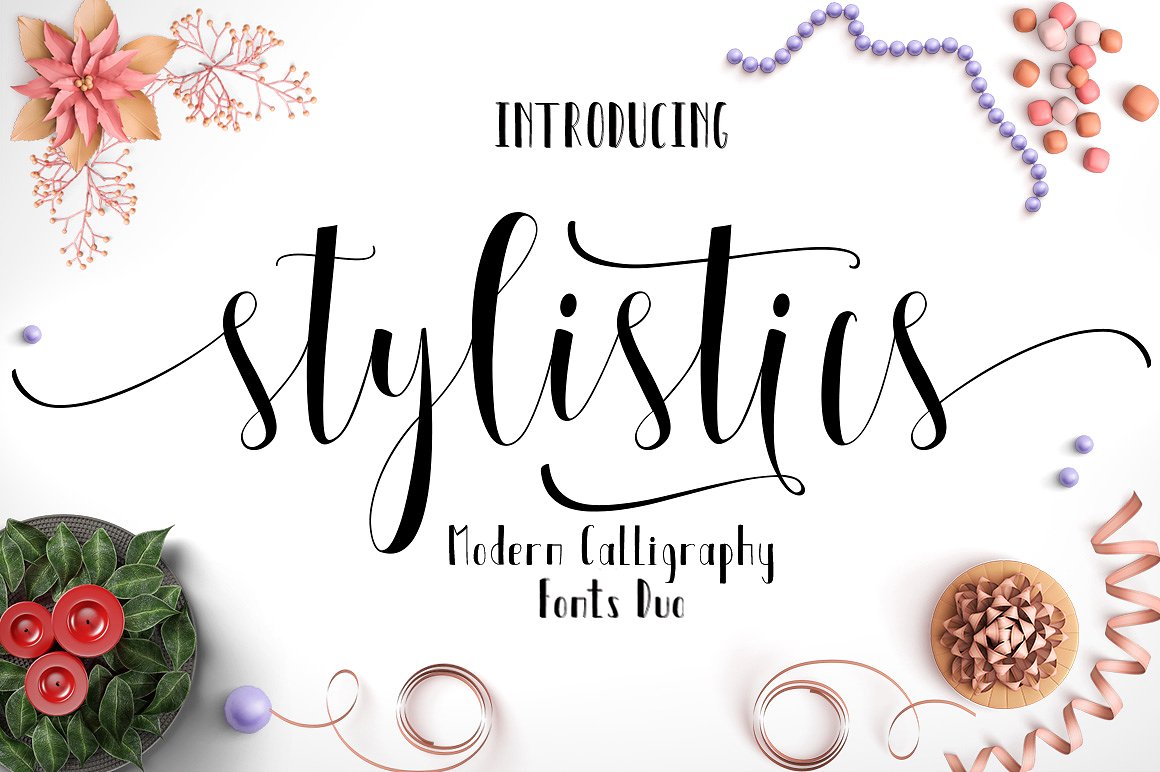
Stylistics Script Font
INTRODUCING the newest else is so beautiful and comes with two very elegant fonts that are designed to compliment each other perfectly.